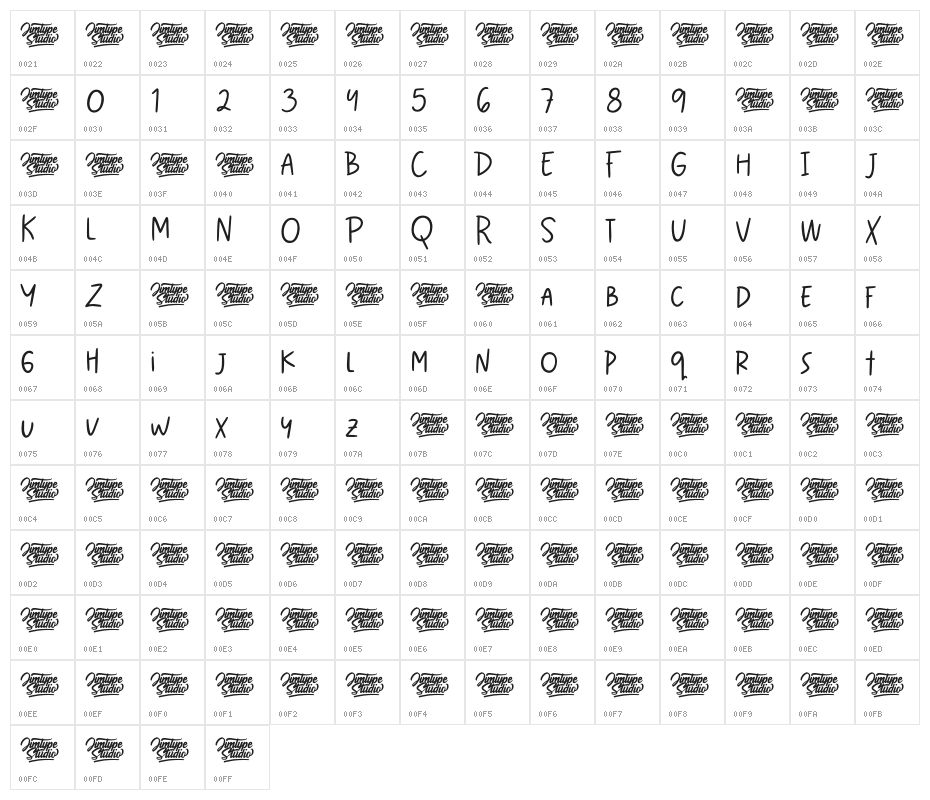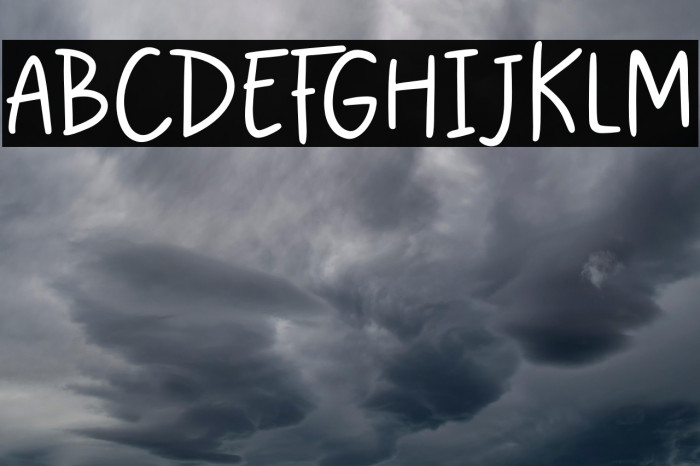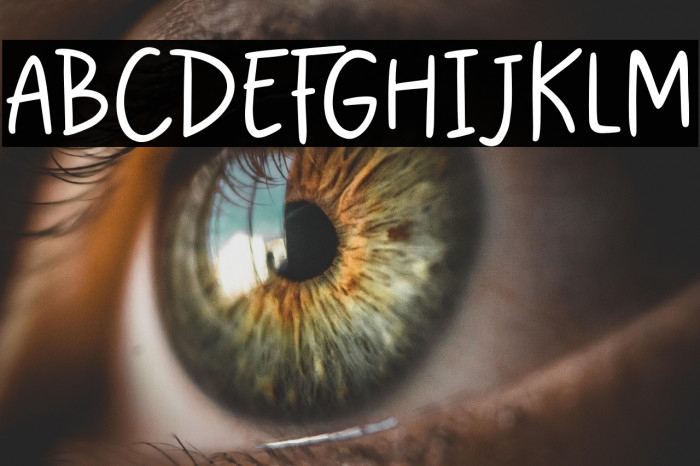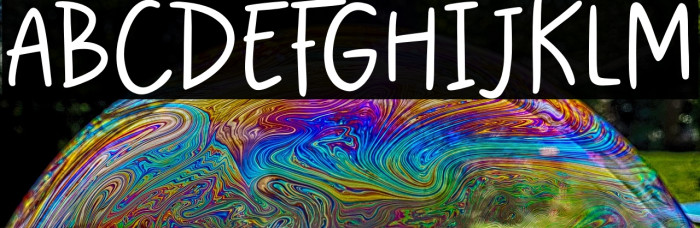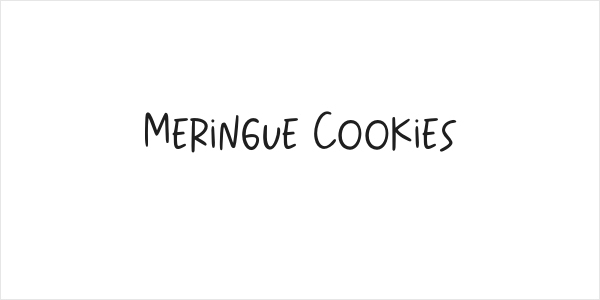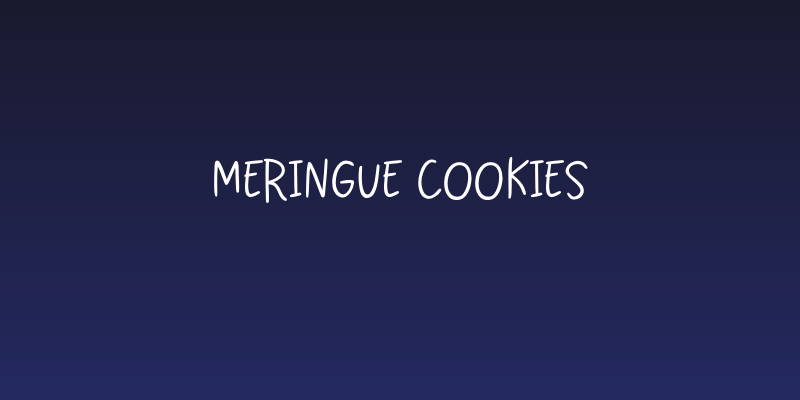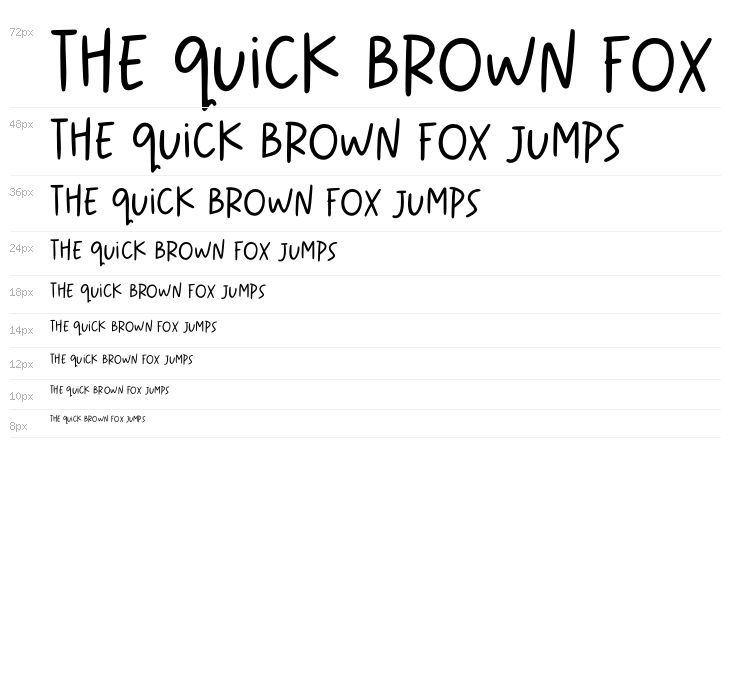
Meringue Cookies Font
Meringue Cookies Description
A playful, handwritten font with a casual and friendly appearance, featuring rounded edges and a slightly irregular baseline.
| Overall Style | Casual, Friendly |
| Use Case | Logos, Headlines, Informal text |
| Proposed Projects | Greeting cards, children's books, casual branding. |